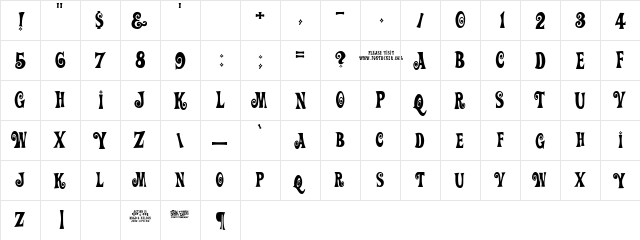
Auction Regular
| Foundry | Gophmann A.L. |
Design Context for Auction Typeface
Auction is a composed and adaptable typeface that performs quietly and consistently across a wide range of design contexts.